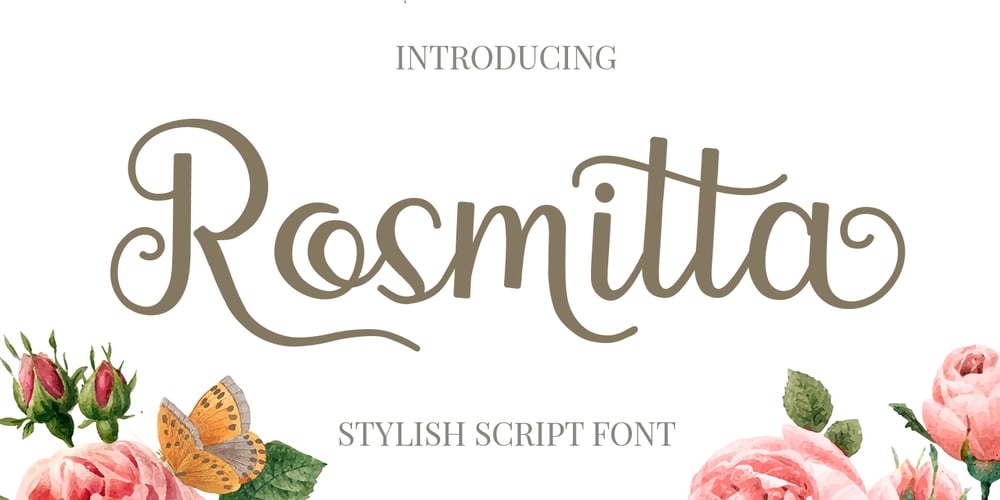
Rosmitta
Rosmitta font
Rosmitta Font Family was designed by Jos Gandos and published by Jos Gandos. Rosmitta contains 1 styles and family package options. Rosmitta is a new, modern, fresh and upright script . This font will make your design look elegant, natural and stylish.Rosmitta is perfect font for any awesome projects such as photography, watermarks, quote design, social media posts, advertisements, logos and branding, invitations, product designs, labels, stationery, wedding designs, product packaging, special events or any project that need handwriting taste.